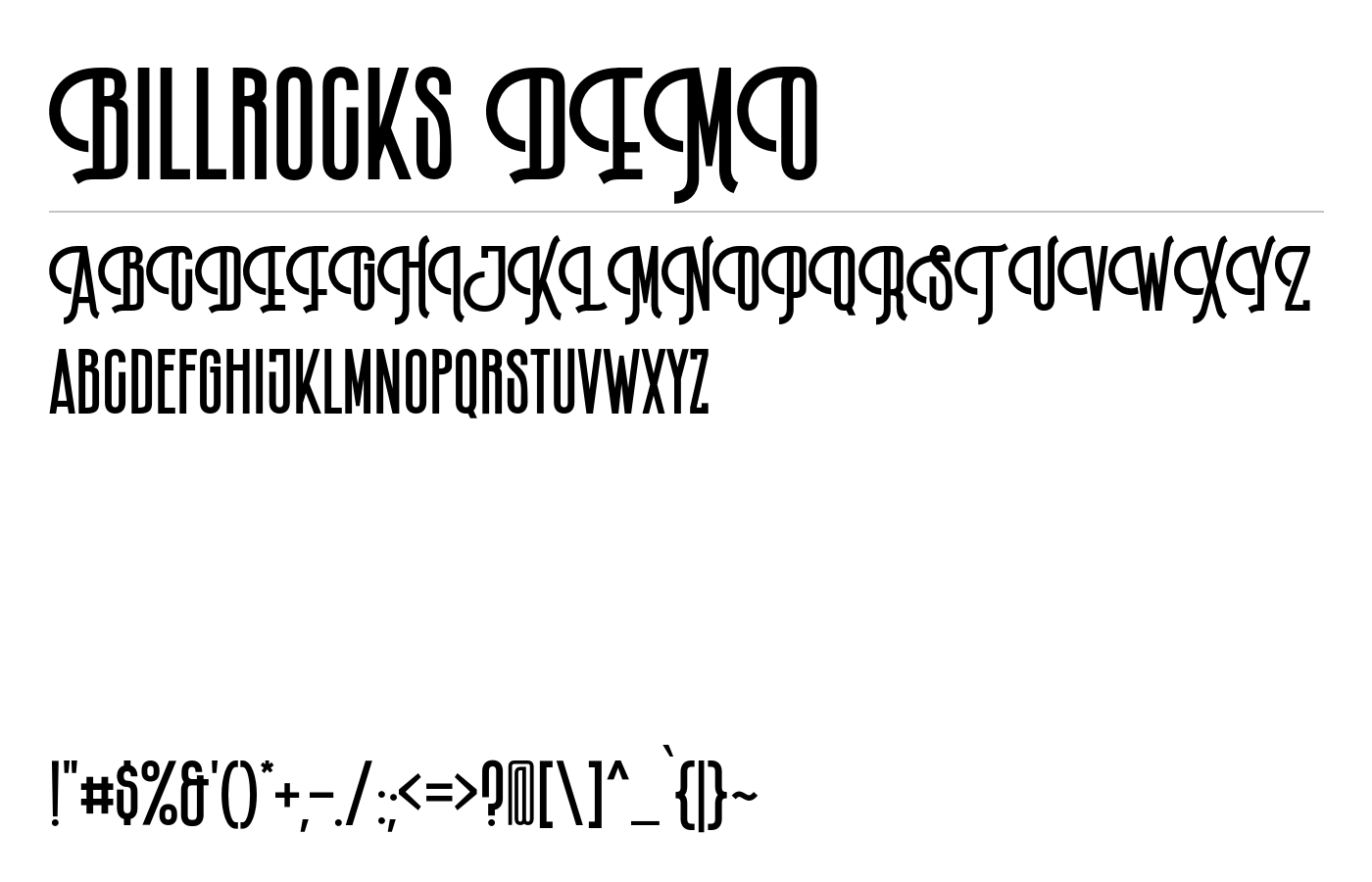
Billrocks DEMO is a narrow, condensed sans-serif font with a striking Art Deco-inspired style that blends bold strokes with elegant curves. Its tall, slender letterforms and distinctive decorative elements give it a vintage yet modern feel, making it perfect for eye-catching headlines, logos, and branding that seek to convey sophistication and uniqueness. This font works especially well in fashion, luxury branding, and creative editorial projects where a strong and stylish statement is desired.
Billrocks DEMO Font
About Billrocks DEMO Font
| Font family | Billrocks DEMO Font |